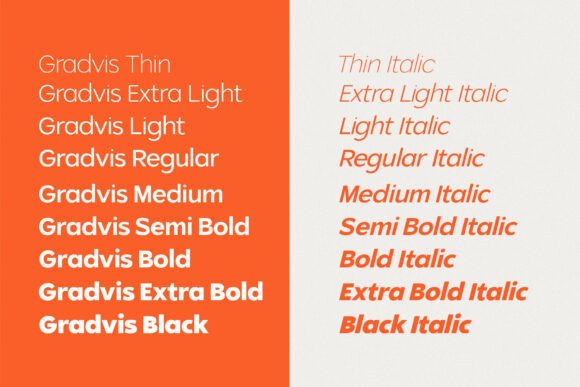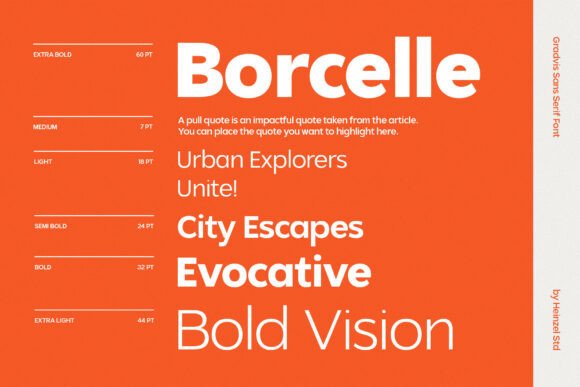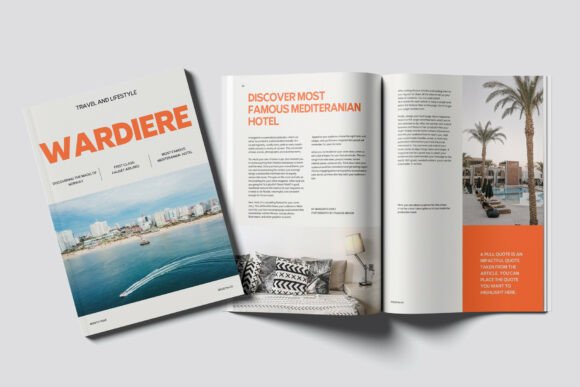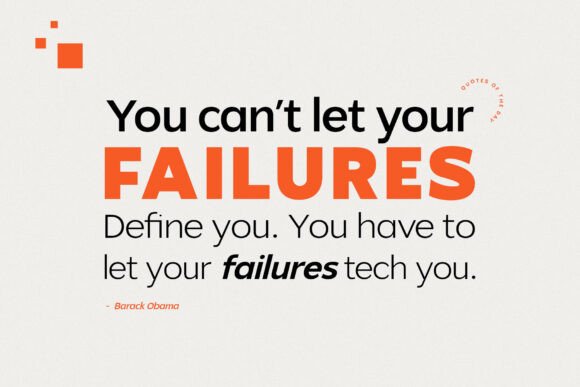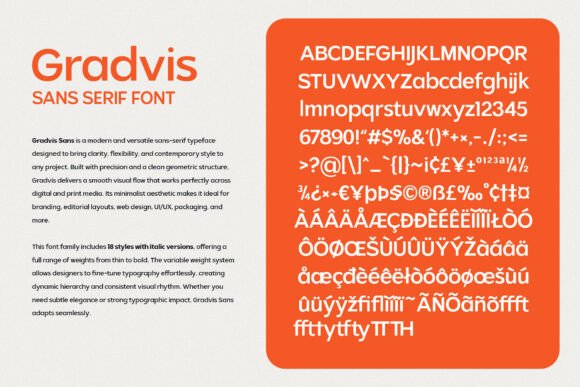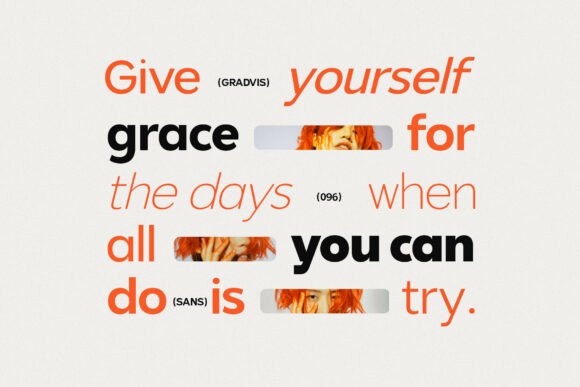
Introducing Gradvis Font: The Ultimate Modern Sans-Serif for Designers and Crafters
In the world of typography, a font can make or break a design project. For designers and crafters looking for a modern, versatile, and highly legible font, Gradvis is the perfect solution. This contemporary sans-serif font is meticulously crafted to bring clarity, flexibility, and a fresh aesthetic to any project. Whether you’re working on branding, editorial layouts, web design, UI/UX, packaging, or more, Gradvis is designed to elevate your work with its clean geometric structure and smooth visual flow.
The Design Philosophy Behind Gradvis
Gradvis is built on a foundation of precision and minimalist design principles. Its geometric structure ensures that the font remains clean and uncluttered, making it highly legible across various mediums, from digital screens to print. This attention to detail and commitment to simplicity makes Gradvis an excellent choice for designers who value clarity and versatility in their typography.
Key Features of Gradvis Font
- Modern Aesthetic: Gradvis boasts a contemporary look that fits well with current design trends, making it perfect for projects that require a fresh and modern feel.
- Versatility: Its sans-serif design and range of weights make Gradvis suitable for a wide array of applications, from body text to headings, and from digital interfaces to print materials.
- Legibility: The font’s clean lines and geometric structure ensure high legibility, even at smaller sizes, which is crucial for both digital and print media.
- Flexibility: Gradvis can be used in various contexts, including but not limited to branding, editorial design, web design, mobile app interfaces, and packaging.
Applications of Gradvis Font
Gradvis’s versatility is one of its standout features, making it suitable for a myriad of design projects. Here are some of the key areas where Gradvis can make a significant impact:
- Branding: Establish a strong brand identity with Gradvis’s clean and modern aesthetic, which can be tailored to fit your brand’s voice and personality.
- Editorial Layouts: Enhance your publications with a font that offers readability and style, making your content more engaging for readers.
- Web Design: Gradvis’s screen-friendly design ensures that your website’s typography is clear and accessible, providing a better user experience.
- UI/UX: For mobile apps and digital interfaces, Gradvis’s legibility and clean design make it an excellent choice for creating intuitive and user-friendly interfaces.
- Packaging: Make a statement with your product packaging using Gradvis, which can help your brand stand out on store shelves.
Why Choose Gradvis?
In a sea of fonts, Gradvis stands out for its unique blend of modernity, versatility, and legibility. Here are a few reasons why designers and crafters should consider Gradvis for their next project:
- Contemporary Style: Gradvis brings a fresh and contemporary style to your designs, ensuring they look current and appealing.
- Wide Range of Applications: Its versatility means you can use Gradvis across multiple projects and mediums, making it a valuable addition to your font library.
- Enhanced Readability: Gradvis’s design prioritizes readability, ensuring your content is easily accessible to your audience, whether in digital or print form.
Gradvis font is a powerful tool for designers and crafters looking to infuse their projects with a modern, clean, and versatile typeface. Its geometric structure, range of applications, and emphasis on legibility make it an excellent choice for a wide range of design needs. Whether you’re creating a brand identity, designing a website, or working on a print project, Gradvis is poised to become your go-to font for delivering clarity, style, and contemporary appeal. Embrace the flexibility and aesthetic of Gradvis, and elevate your designs to new heights of sophistication and impact.